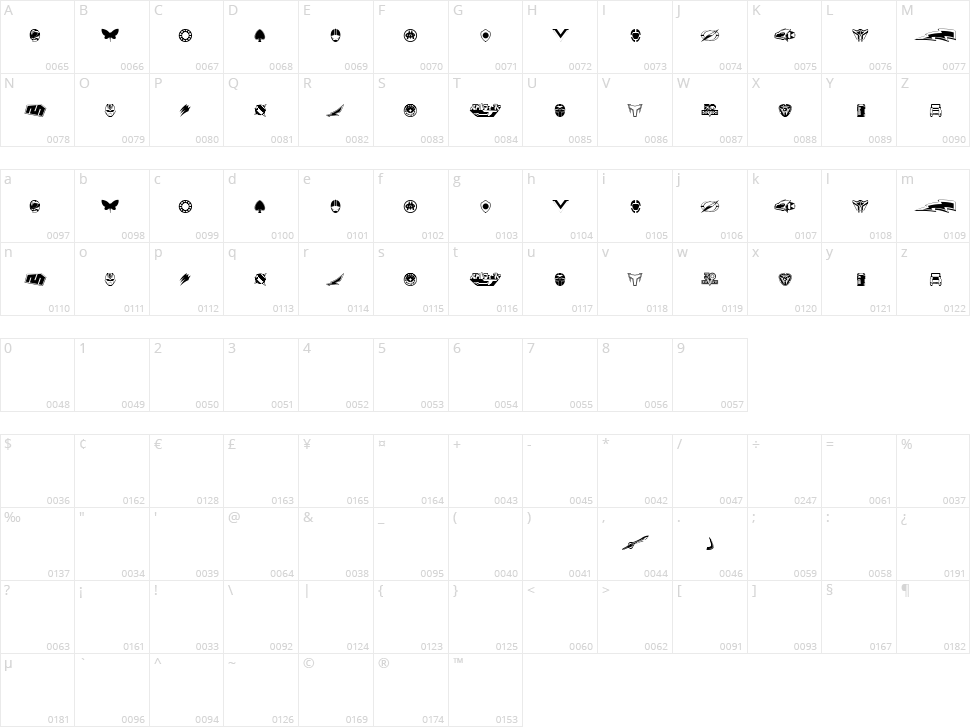
Sentai 30 Dingbats
Font designed by Debora Aquino.
Collaboration by Gabriela Albuquerque.
Super Sentai logos and characters property by Toei Company.
A - Jetman
B - Magiranger
C - Sun Vulcan
D - Jakq
E - Timeranger
F - Changeman
G - Battle Fever J
H - Fiveman
I - Go Go V
J - Boukenger
K - Abaranger
L - Flashman
M - Hurricanger
N - Zyuranger
O - Gekiranger
P - Gekiranger
Q - Sun Vulcan
R - Hurricanger
S - Hurricanger
T - Battle Fever J
U - Maskman
V - Turboranger
W - Super Sentai 30th Anniversary
X - Timeranger
Y - Dekaranger
Z - Carranger
- Dairanger
. - Dynaman
, - Megaranger